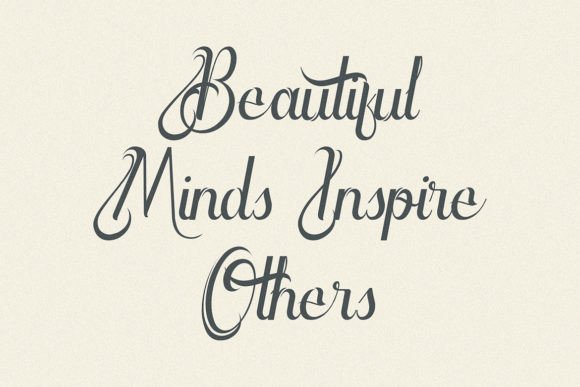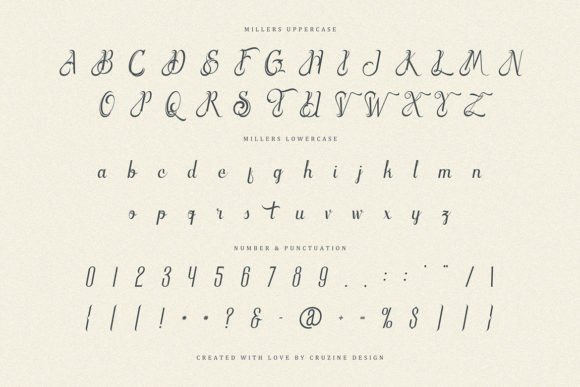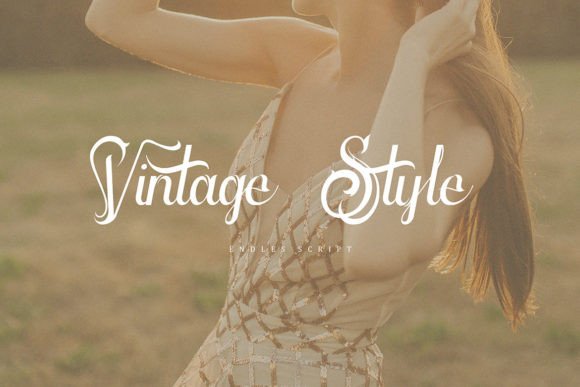
Introducing Endles Font: Elevate Your Designs with Timeless Elegance
In the world of typography, few fonts capture the essence of luxury and sophistication as effortlessly as Endles Font. This stylish and classy script font has been turning heads with its flowing, graceful letters that exude refinement and poise. Whether you’re a designer looking to elevate your branding projects or a crafter seeking the perfect font for wedding invitations and upscale designs, Endles Font is an exceptional choice.
The Beauty of Endles Font
Endles Font boasts a unique, elegant aesthetic that sets it apart from more common fonts. Its letters are designed to flow seamlessly into one another, creating a beautiful, harmonious effect that’s perfect for designs that require a touch of sophistication. The font’s classic, timeless beauty ensures that it will never go out of style, making it an excellent investment for designers and crafters who want their work to stand the test of time.
Perfect for High-End Branding
When it comes to branding, the right font can make all the difference. Endles Font is an excellent choice for high-end brands looking to establish a luxurious, sophisticated image. Its elegant letters convey a sense of refinement and exclusivity, helping to elevate your brand above the competition. Whether you’re designing a logo, business cards, or marketing materials, Endles Font is sure to make a lasting impression.
Wedding Invitations and Special Occasions
For crafters and designers specializing in wedding invitations and other special occasion designs, Endles Font is a dream come true. Its beautiful, flowing letters are perfect for creating elegant, sophisticated invitations that set the tone for a luxurious event. Whether you’re designing formal wedding invitations, baby shower announcements, or graduation party invites, Endles Font is sure to add a touch of class and sophistication.
Key Features of Endles Font
- Stylish and classy script font: Endles Font features a unique, elegant aesthetic that’s perfect for high-end designs.
- Flowing and graceful letters: The font’s letters are designed to flow seamlessly into one another, creating a beautiful, harmonious effect.
- Timeless beauty: Endles Font’s classic, timeless beauty ensures that it will never go out of style.
- Perfect for high-end branding: The font’s elegant letters convey a sense of refinement and exclusivity, making it perfect for high-end brands.
- Suitable for wedding invitations and special occasions: Endles Font is a great choice for designing elegant, sophisticated invitations and other special occasion materials.
Tips for Using Endles Font
To get the most out of Endles Font, here are a few tips to keep in mind:
- Use it sparingly: While Endles Font is beautiful, it’s best used sparingly to avoid overwhelming the design. Use it for headings, titles, or key phrases to add emphasis and elegance.
- Pair it with a complementary font: Endles Font pairs beautifully with clean, simple fonts like Arial, Helvetica, or Open Sans. Experiment with different combinations to find the perfect pairing for your design.
- Experiment with colors and textures: Endles Font looks stunning in a variety of colors and textures. Try experimenting with metallic colors, watercolor effects, or subtle textures to add depth and interest to your design.
Endles Font is a truly exceptional font that offers a unique blend of style, sophistication, and timeless beauty. Whether you’re a designer looking to elevate your branding projects or a crafter seeking the perfect font for wedding invitations and upscale designs, Endles Font is an excellent choice. With its flowing, graceful letters and luxurious aesthetic, this font is sure to add a touch of elegance and refinement to any project.